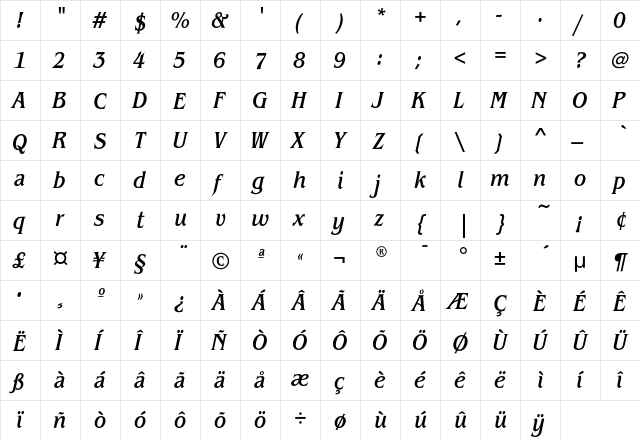
BenguiatEF-MediumCondensedIta Regular
Design Context for BenguiatEF-MediumCondensedIta Typeface
BenguiatEF-MediumCondensedIta is a composed and adaptable typeface that performs quietly and consistently across a wide range of design contexts. Its narrow stance lets it pack a punch even in space-constrained designs.